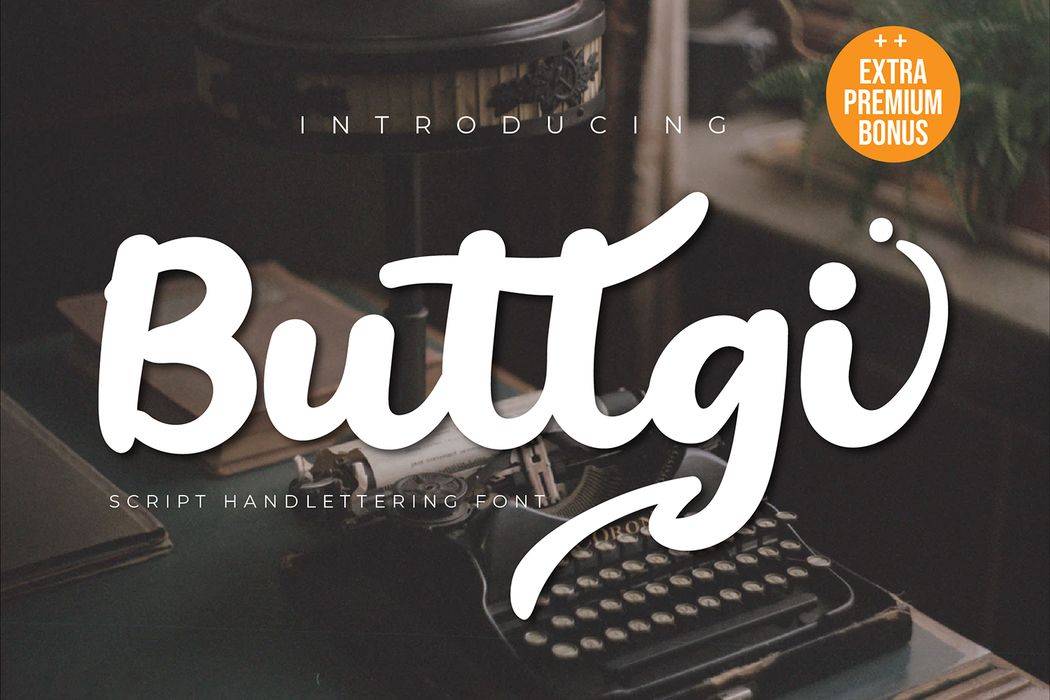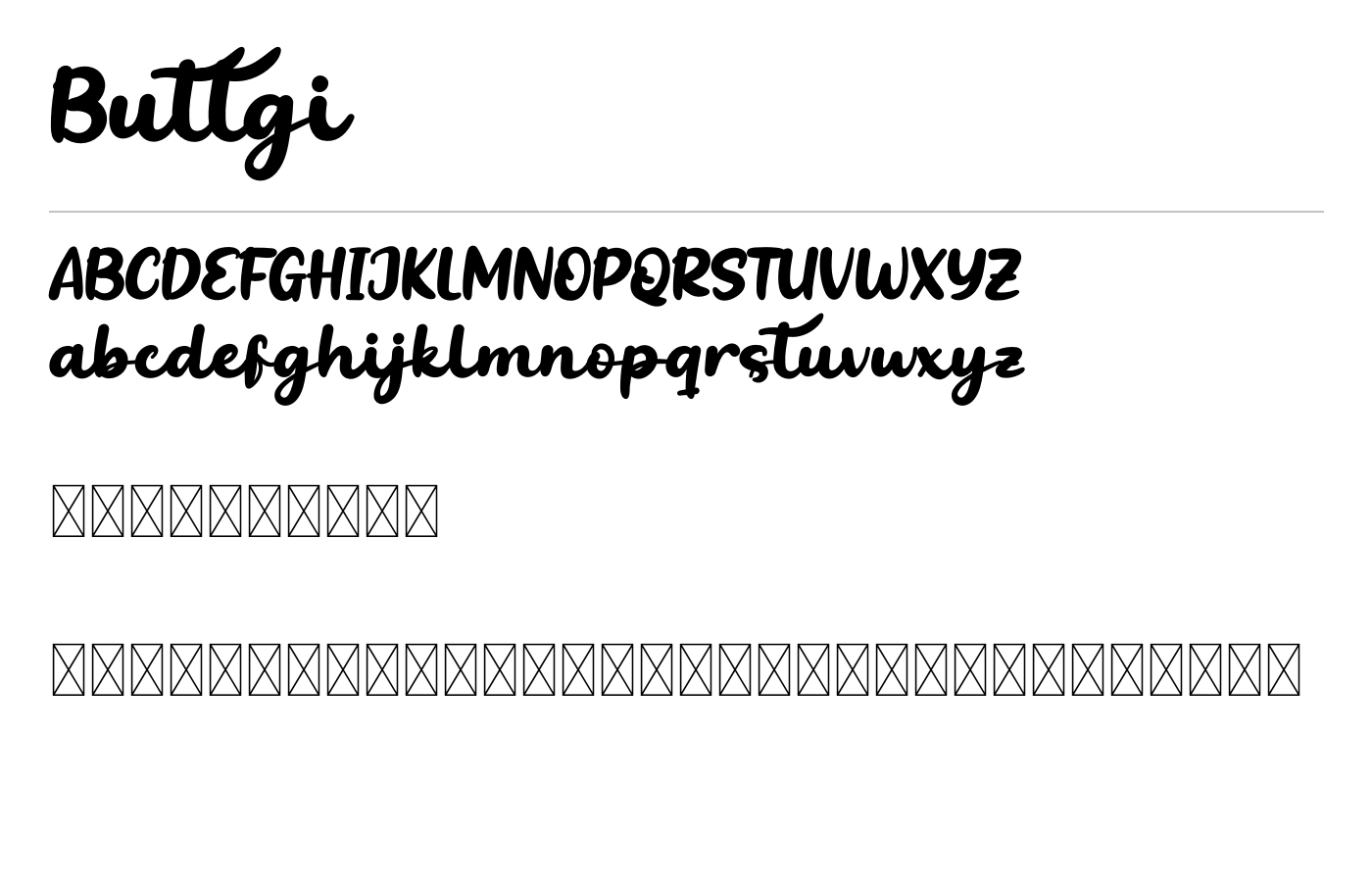
Buttgi is a playful and casual script font with rounded, flowing letterforms that evoke a friendly and approachable vibe. Its smooth strokes and moderate contrast make it suitable for informal branding, packaging, and creative headlines where a warm, handwritten feel is desired. This font works well for projects aiming to communicate creativity and charm with a modern touch.
Buttgi Font
About Buttgi Font